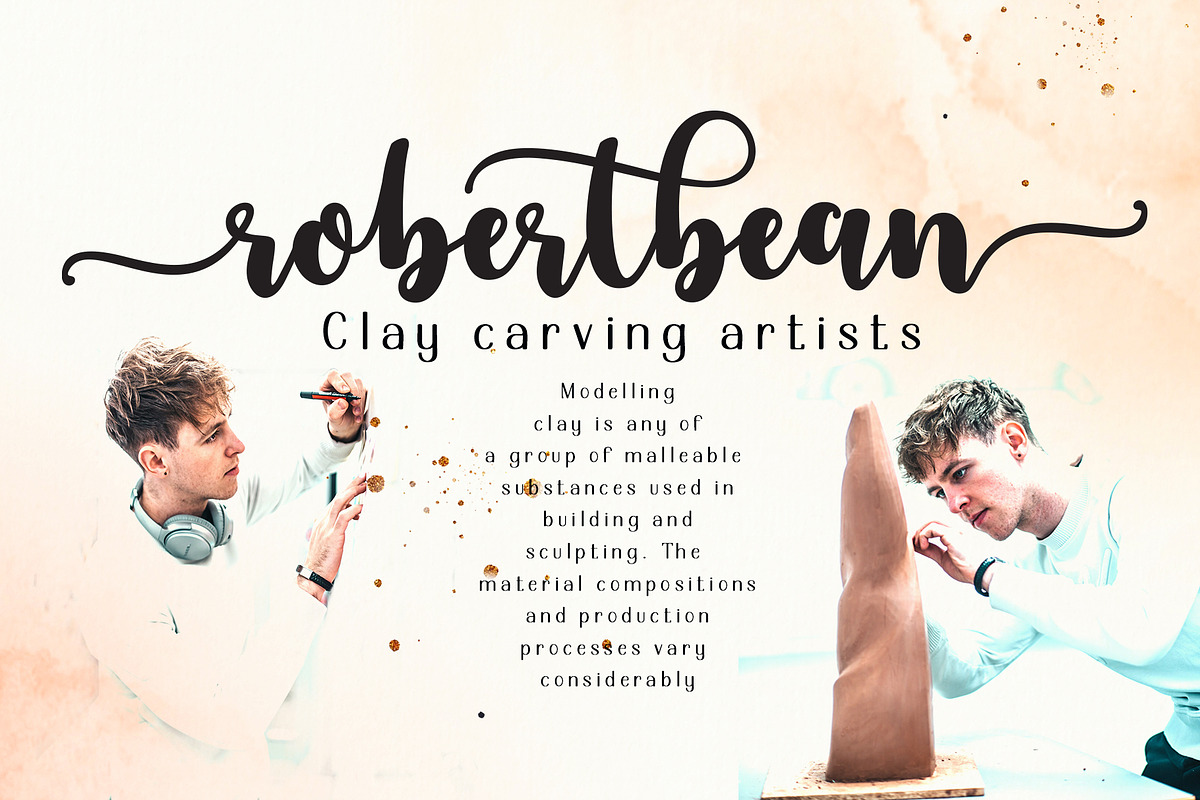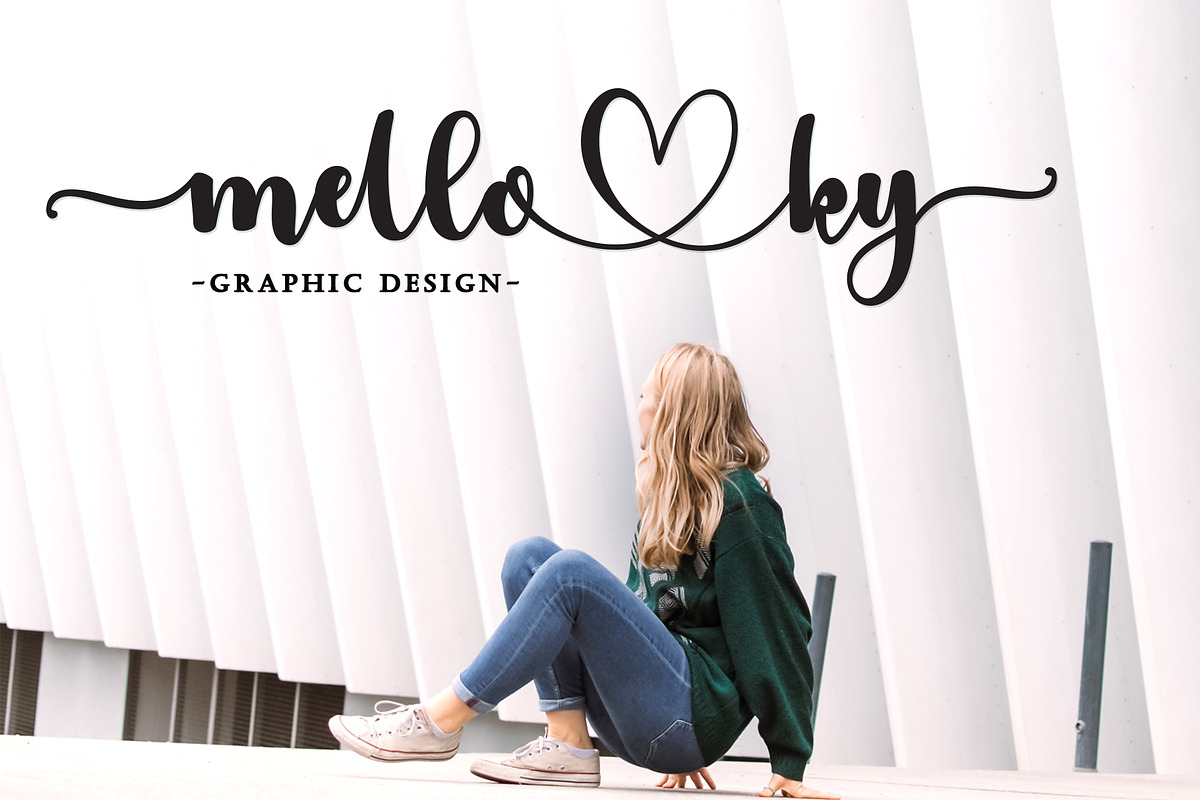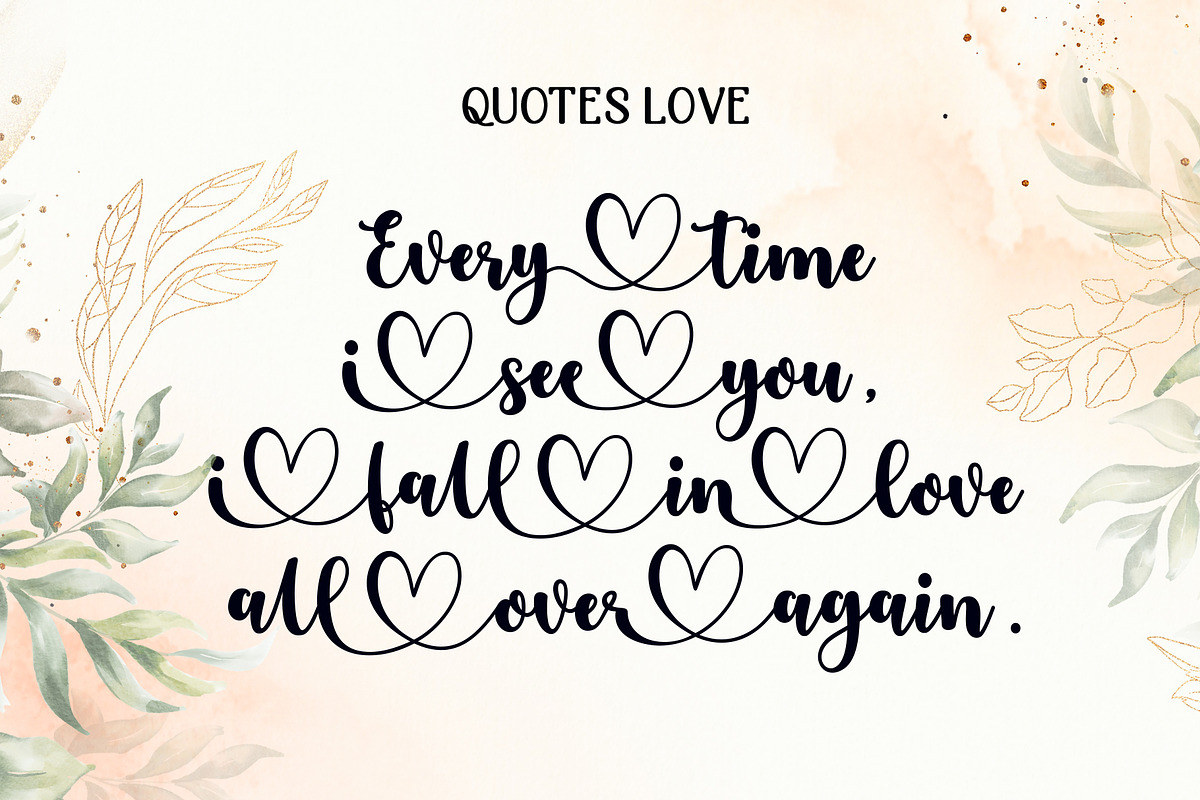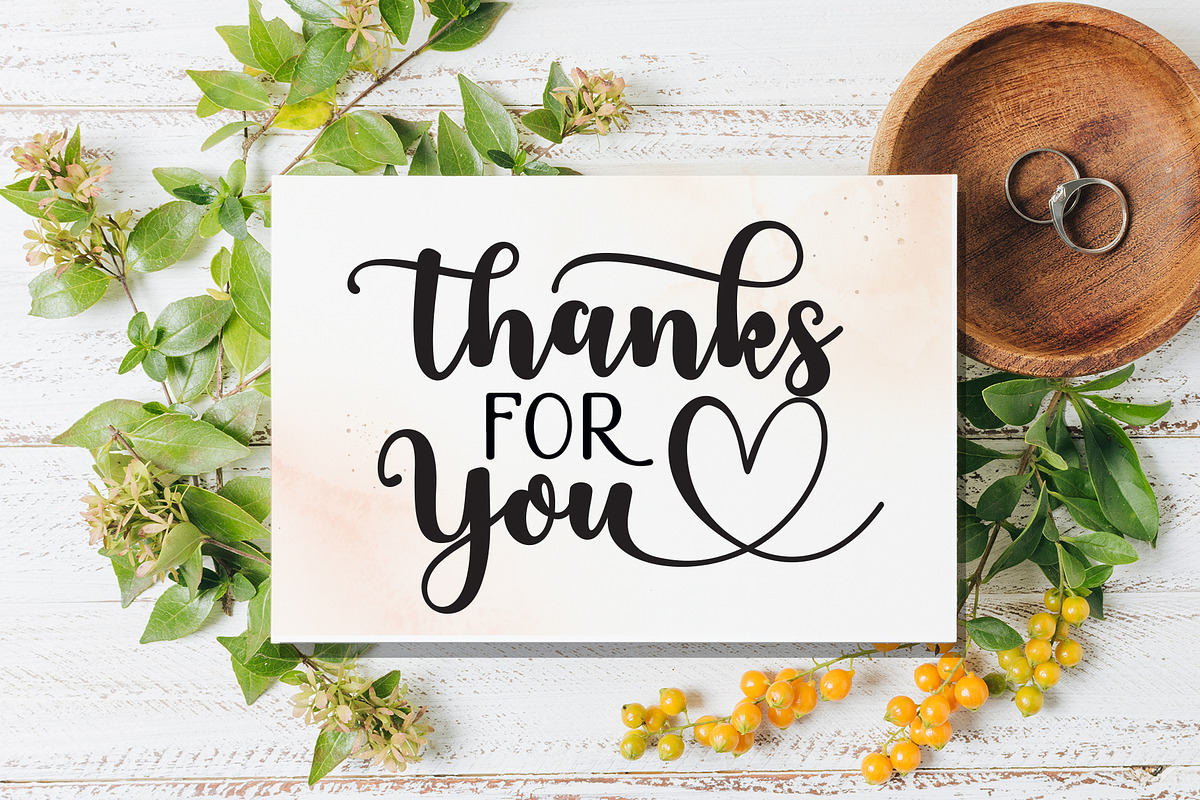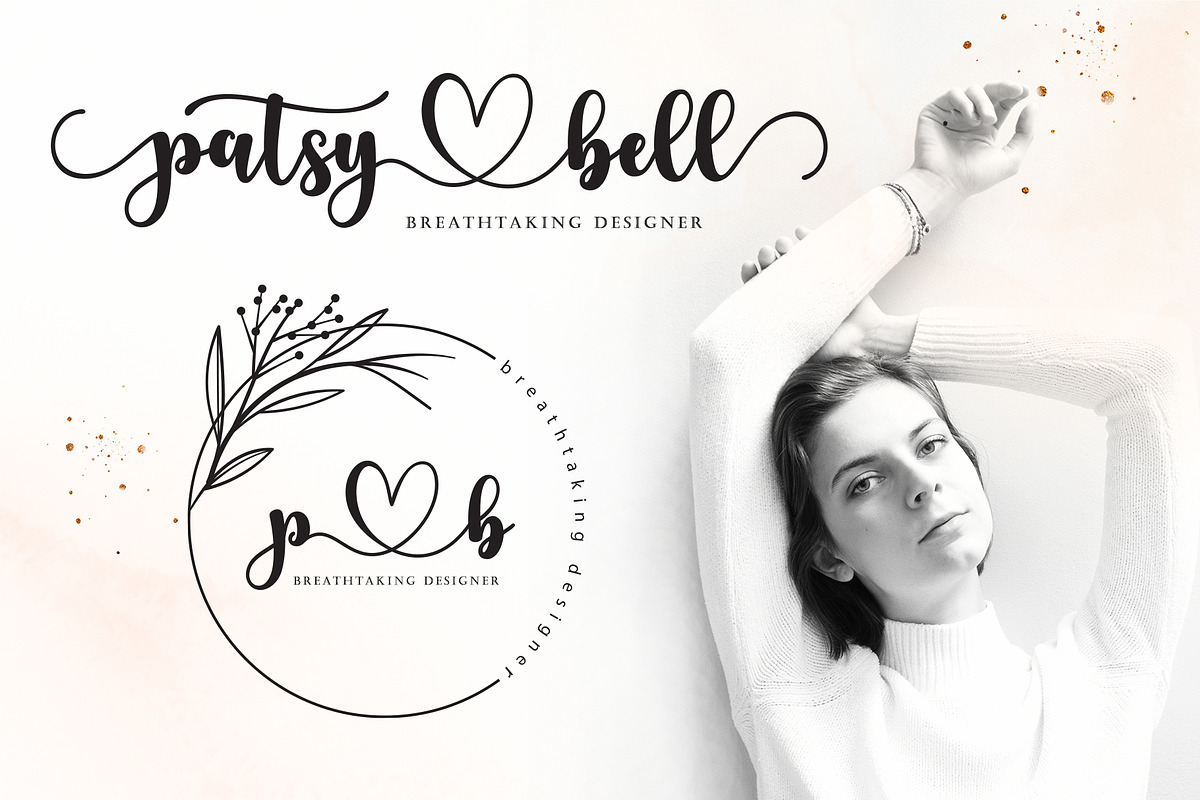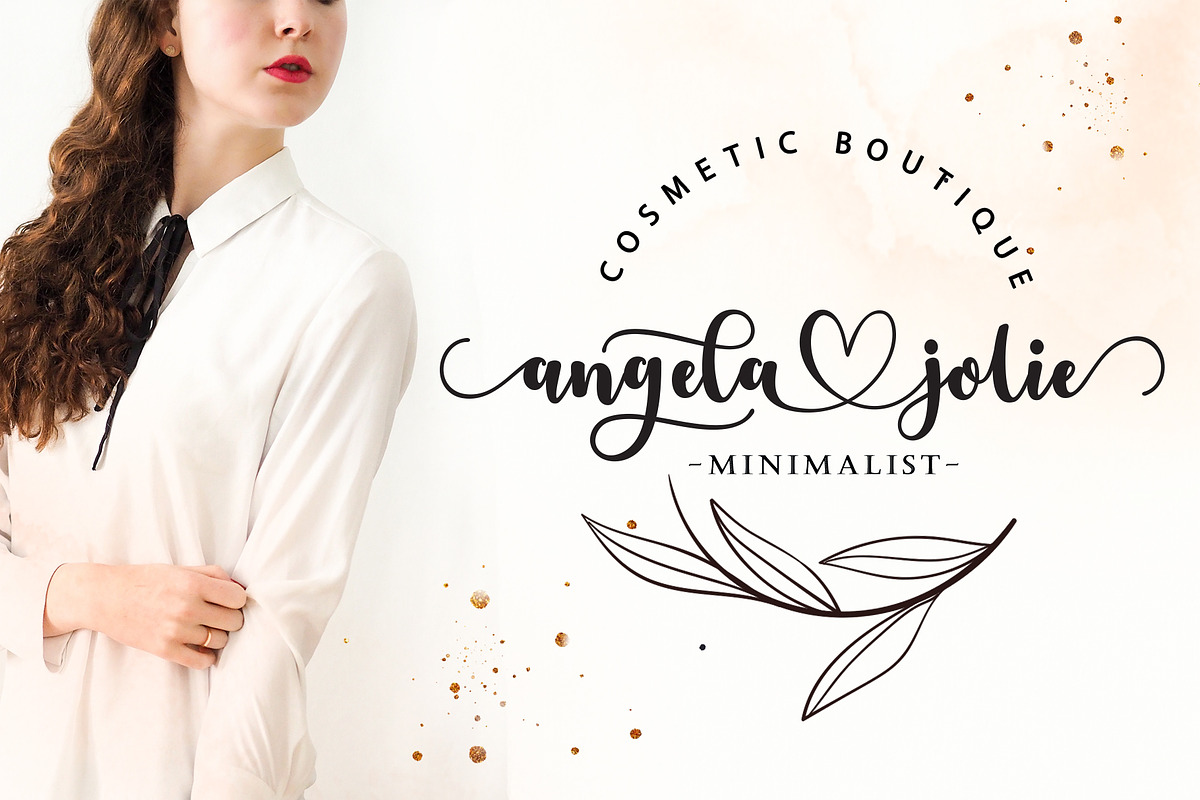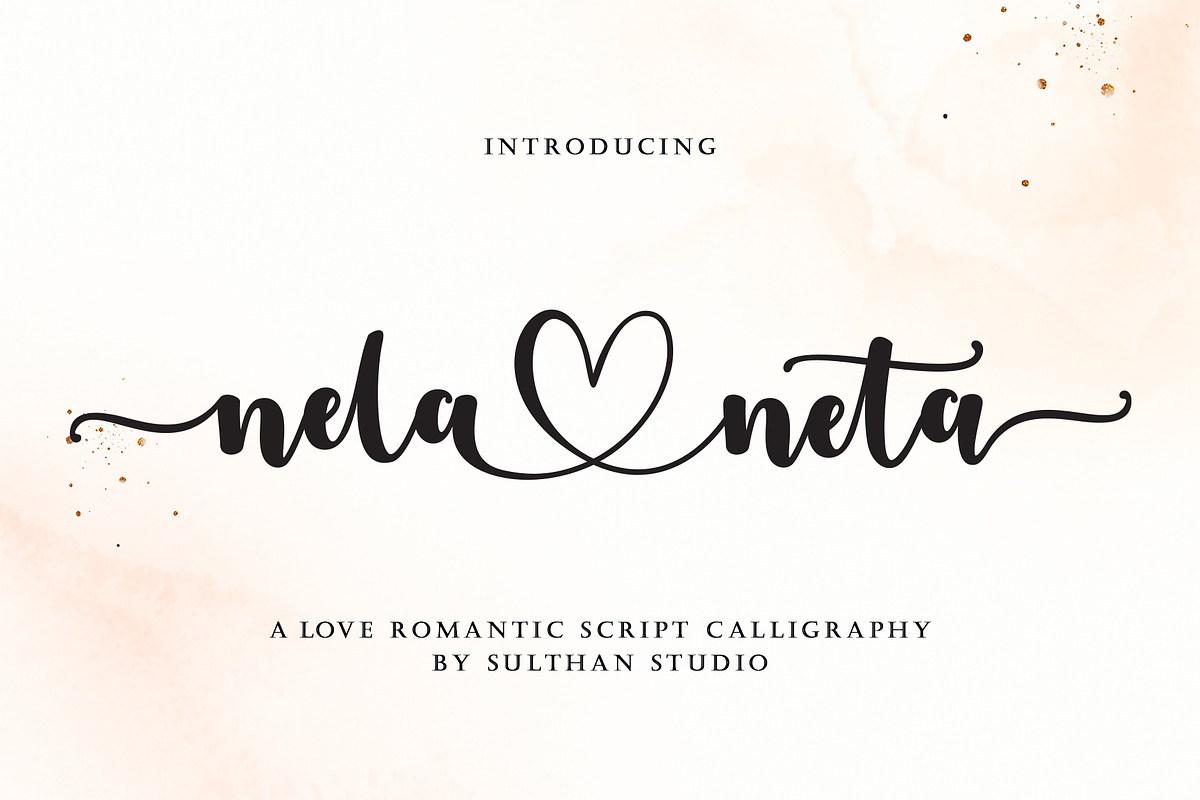
Nela neta
The Nela neta script a romantic typography. Bold, elegant & fun vintage script fonts. Can be used for various purposes such as logos, wedding invitations, T-shirts, letterheads, signage, news, posters, badges etc.
Nela neta script with heart blends and alternative characters, ligatures, swashes and multiple language support.